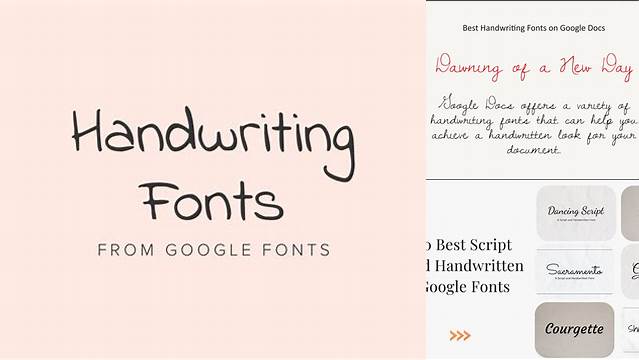
Top Handwriting Fonts On Google Fonts
Hey guys! Finding the perfect font can be a real game-changer for your projects. If you're aiming for that personal, authentic touch, handwriting fonts are the way to go. And guess what? Google Fonts has a treasure trove of amazing options! Let's dive into some of the best handwriting fonts in Google Fonts that can add that special something to your designs.
Why Choose Handwriting Fonts?
Before we jump into specific fonts, let's talk about why handwriting fonts are so awesome. They bring a sense of warmth and individuality that you just can't get with standard serif or sans-serif fonts. Whether you're designing a wedding invitation, creating a logo, or adding flair to your website, handwriting fonts can make your content feel more approachable and relatable. They're perfect for projects where you want to convey a personal touch and connect with your audience on a deeper level. Think about how a handwritten note feels versus a typed email—that's the kind of emotion these fonts can evoke!
Factors to Consider When Choosing a Handwriting Font
Choosing the best handwriting fonts in Google Fonts isn't just about picking one that looks cool. There are a few things you should keep in mind to make sure it fits your project like a glove. First, think about readability. A super fancy, swirly font might look pretty, but if people can't easily read it, it's not doing its job. Consider the context where the font will be used. A playful, whimsical font might be great for a children's book, but not so much for a formal business proposal. Also, pay attention to the font's weight and style variations. Some fonts come with different thicknesses and styles, giving you more flexibility. Last but not least, make sure the font plays well with other fonts you're using. You want a harmonious combination that enhances your overall design.
1. Overview of Google Fonts
Google Fonts is an incredible resource for designers and creators. It offers a vast library of fonts that are free to use, making it accessible for everyone. The platform is user-friendly, allowing you to easily browse, preview, and download fonts for your projects. One of the best things about Google Fonts is that it hosts the fonts on its servers, so you don't have to worry about hosting them yourself. This ensures fast loading times and a seamless experience for your website visitors. Plus, with its extensive collection of handwriting fonts, you're sure to find something that suits your needs and helps you achieve the perfect look for your designs. Google Fonts is a game-changer when you're looking for the best handwriting fonts in Google Fonts.
3. Font Pairing Tips for Handwriting Fonts
Pairing fonts can be tricky, but when done right, it can take your design to the next level. When working with handwriting fonts, it's usually best to pair them with a clean and simple sans-serif or serif font. This creates a nice contrast and prevents your design from looking too cluttered or overwhelming. For example, you could pair a bold handwriting font with a light and airy sans-serif for a modern and balanced look. Or, you could combine a more delicate handwriting font with a classic serif for a touch of elegance. The key is to experiment and see what looks best for your specific project. Consider the overall tone and style you're going for, and choose fonts that complement each other. Font pairing is crucial when you are trying to integrate the best handwriting fonts in Google Fonts into your designs.
4. Readability Considerations
Readability is king! No matter how beautiful a font is, if people can't read it easily, it's not serving its purpose. When choosing handwriting fonts, pay close attention to the letterforms and spacing. Some handwriting fonts can be quite elaborate, with lots of swirls and embellishments, which can make them difficult to read, especially in large blocks of text. Consider using these more decorative fonts for headlines or short phrases, and pair them with a more legible font for body text. Also, think about the size at which the font will be displayed. A font that looks great at a large size might become illegible when it's scaled down. Always test your font choices in different sizes and contexts to ensure they remain readable. Readability is key to effectively using the best handwriting fonts in Google Fonts.
5. Best Handwriting Fonts for Logos
A logo is the face of your brand, so choosing the right font is crucial. Handwriting fonts can add a personal and memorable touch to your logo, helping you stand out from the competition. When selecting a handwriting font for your logo, consider your brand's personality and target audience. A playful and whimsical font might be great for a children's brand, while a more elegant and sophisticated font could be perfect for a luxury brand. Also, make sure the font is legible and scalable. Your logo will be used in various sizes and contexts, so it needs to look good whether it's printed on a business card or displayed on a website. Experiment with different font combinations and layouts to create a logo that truly represents your brand. Choosing the best handwriting fonts in Google Fonts for logos requires careful consideration.
6. Ideal Fonts for Invitations
Invitations are all about setting the tone for an event, and the font you choose plays a big role in that. Handwriting fonts can add a touch of elegance and personalization to your invitations, making them feel extra special. Whether you're planning a wedding, a birthday party, or a baby shower, a well-chosen handwriting font can help you create the perfect vibe. Consider the style of your event and choose a font that complements it. A formal event might call for a sophisticated and refined font, while a casual event could benefit from a more playful and relaxed font. Don't forget to pay attention to readability and ensure your guests can easily read the important details. You can find the best handwriting fonts in Google Fonts for any type of invitation.
7. Enhancing Website Design
Fonts are a crucial element of website design, influencing the overall look and user experience. Using handwriting fonts strategically can add personality and warmth to your site, making it more engaging for visitors. Consider using handwriting fonts for headings, quotes, or call-to-action buttons to draw attention and create a unique visual appeal. However, be mindful of readability and avoid using handwriting fonts for large blocks of text. Pair them with clean and simple sans-serif fonts for body text to ensure a balanced and user-friendly design. When used thoughtfully, handwriting fonts can significantly enhance your website's aesthetic and create a memorable impression. Choosing the best handwriting fonts in Google Fonts is key to a successful website design.
Choosing the best handwriting fonts in Google Fonts requires careful consideration of readability, context, and overall design goals. By following these tips and exploring the vast selection of fonts available, you can find the perfect handwriting fonts to enhance your projects and create a lasting impression.